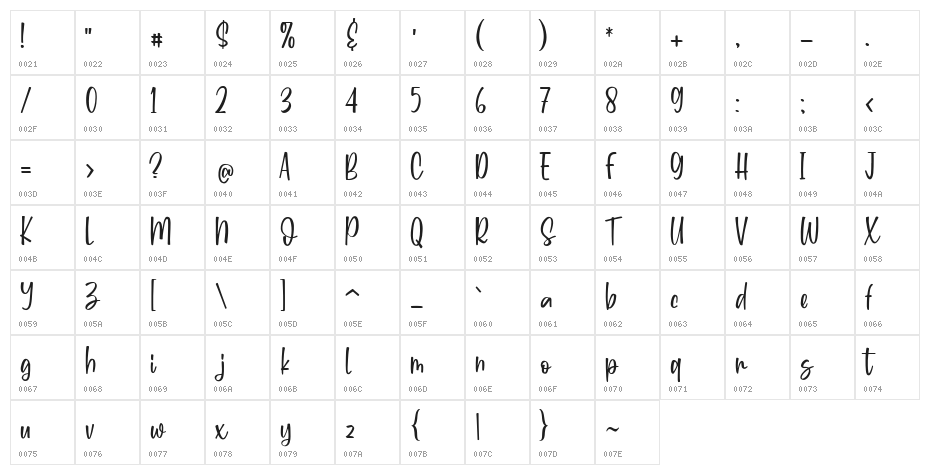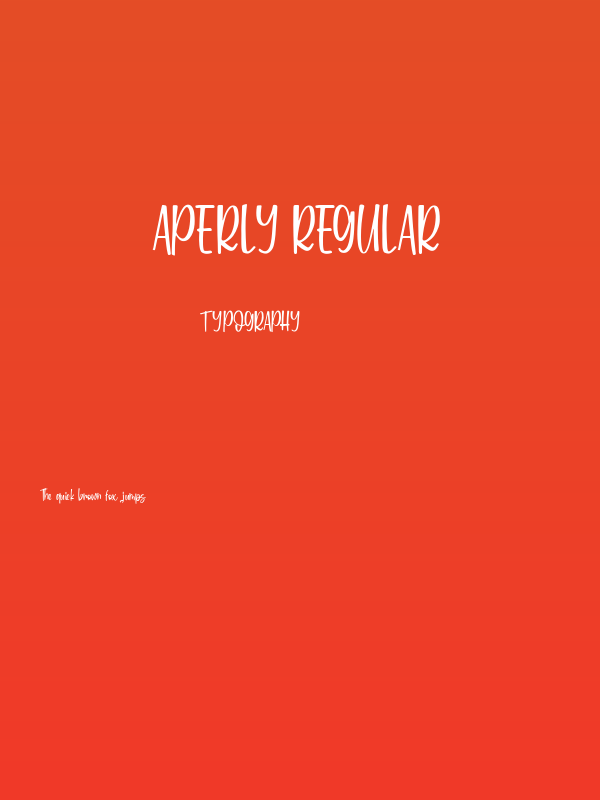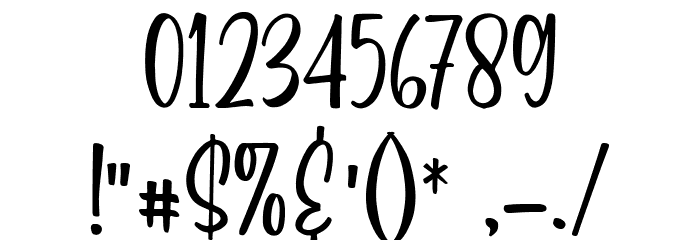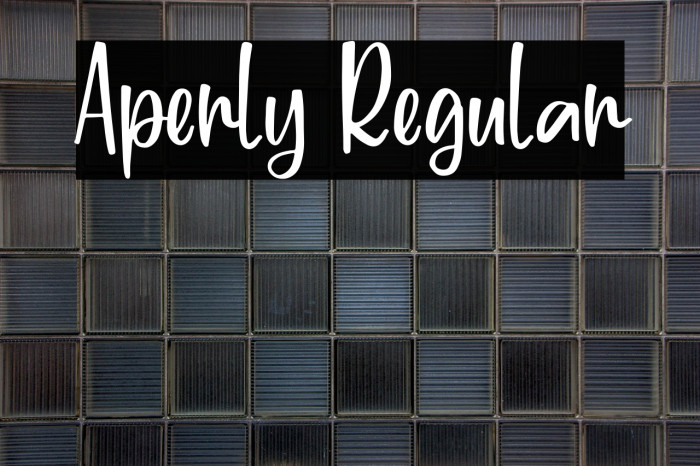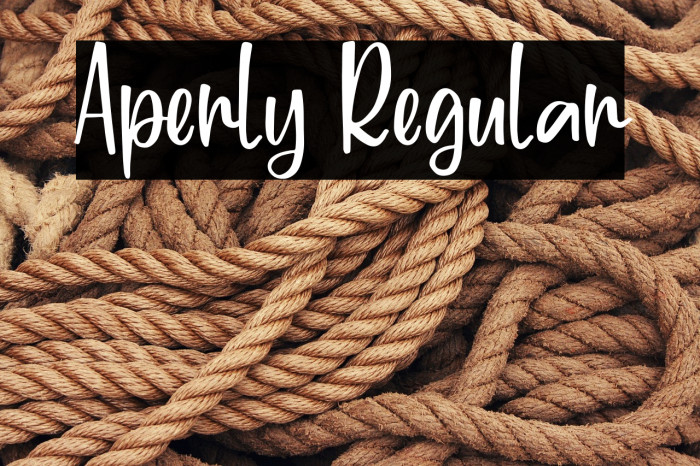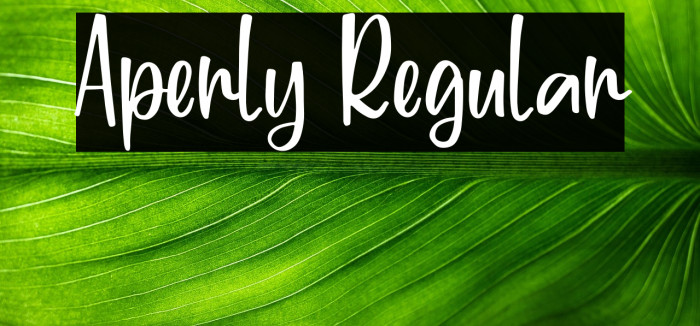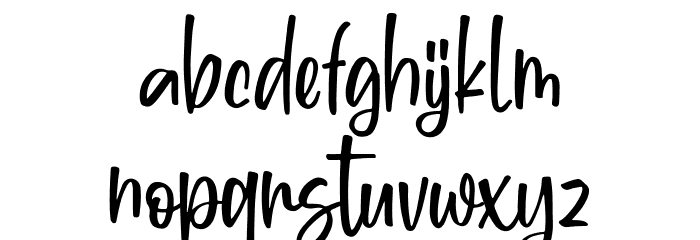
Aperly Regular Font
Aperly Regular Description
This font features a playful and casual handwritten style, characterized by its smooth, flowing lines and slightly irregular shapes. The uppercase letters are tall and narrow, with a consistent stroke width that gives them a clean and modern appearance. The lowercase letters maintain the same playful aesthetic, with some letters featuring unique loops and curves that add to the font's charm. The numerals are well-proportioned and align seamlessly with the overall style. Special characters are included, maintaining the same whimsical feel. This font is versatile and can be used to add a personal touch to various design projects.
| Use Case | Logos, Headlines, Social media graphics |
| Proposed Projects | Ideal for greeting cards, invitations, personal branding, and social media graphics. |